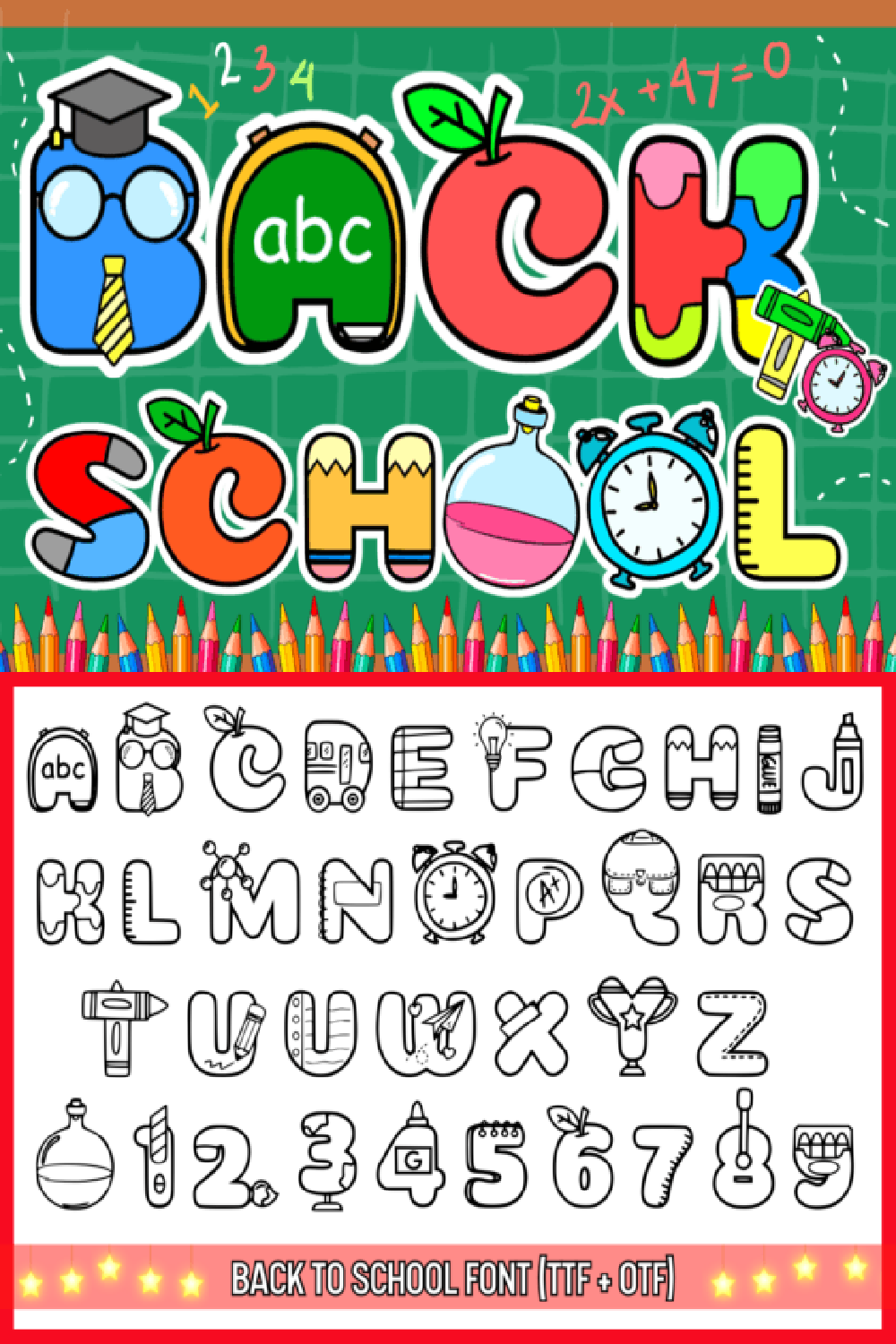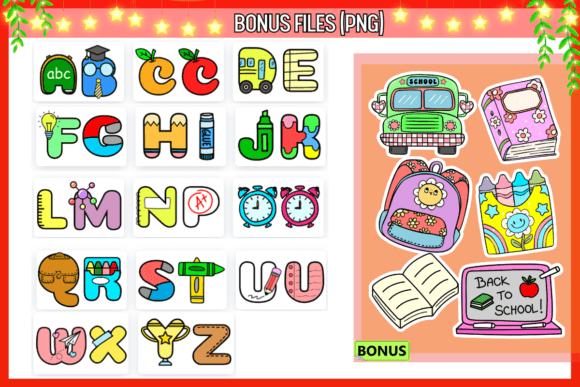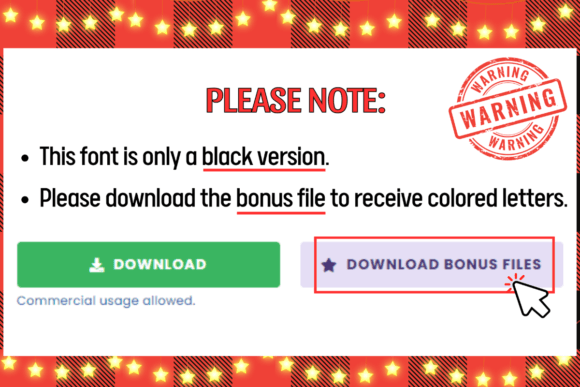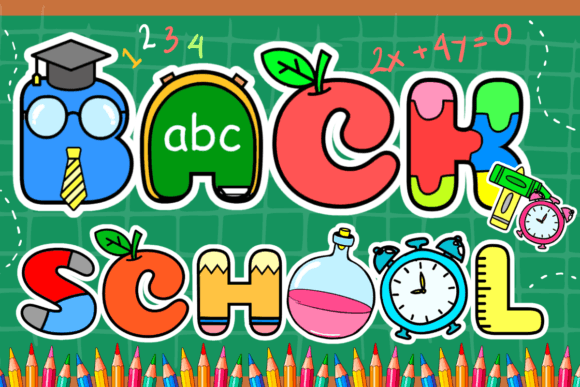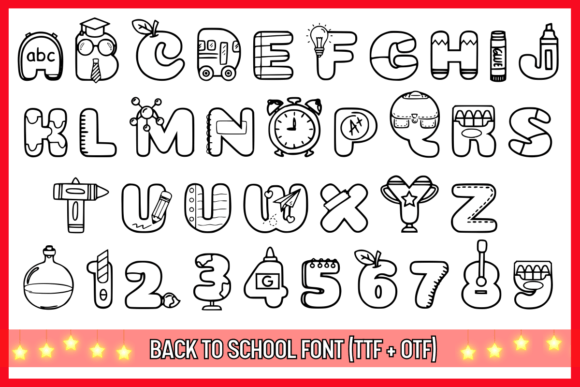
About the Back to School Font
Introducing the Back to School Font, a beautifully crafted typeface designed to elevate your creative projects. “Back to School” is a fun decorative font where each letter looks like it’s dressed up in school-related items like pencils, books, or chalkboards. The font includes colorful PNG files of the letters, making it perfect for school-themed projects or decorations.